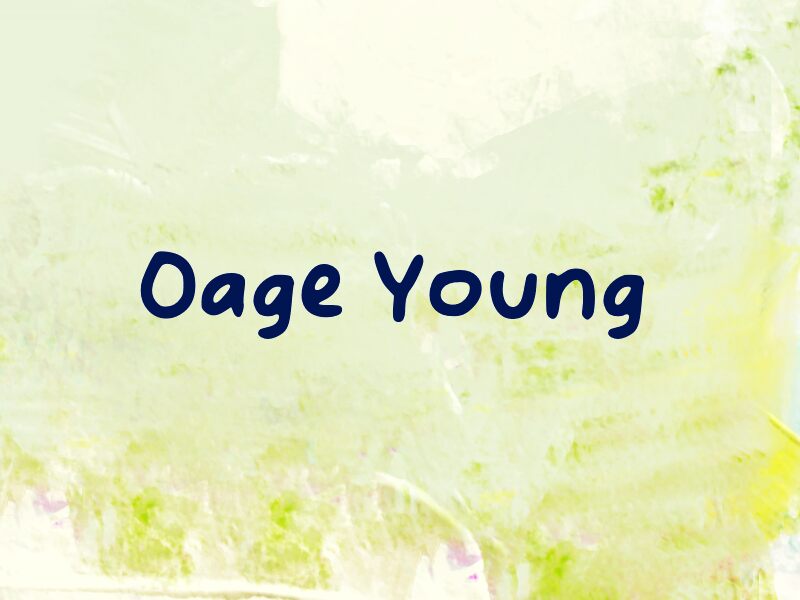
Oage Young font by Wep is a free handwritten font inspired by the modern vibe of youthful culture, making a casual typeface that is friendly and approachable. Each letter is crafted with rounded soft edges and a relaxed mood.
Designed with informality in mind, this young handwriting type brings the reader to a comfortable space that is fun and energetic. This font is perfect for projects targeting the younger generations. This includes magazines, posters, social media design, school projects, greeting cards, packaging, fashion branding, and so much more.
Use Oage Young to caption your pop culture illustrations or use it in films, documentaries, music videos, title sequences, or short movies. This font brings out the most when you accompany other design elements like colors, shapes, and graphics. It is free for personal use but requires a commercial license for further business usage.
Oage Young is a stylish and modern free font that captures the essence of contemporary design. Ideal for a variety of projects, this font offers both elegance and functionality, making it suitable for headlines, branding, and creative advertising.
With its unique character set and attention to detail, Oage Young stands out as a versatile choice for designers looking to enhance their work. Whether you're creating a website, social media graphics, or print materials, this font download provides a perfect balance between readability and artistic flair.